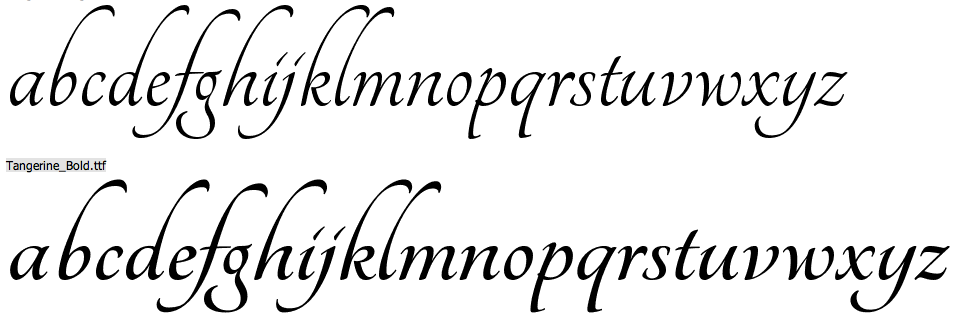
Omega Type Foundry [Toshi Omagari]
Toshi Omagari is a Japanese type designer who grew up in Fukuoka and studied typography and type design at Musashino Art University in Tokyo. After graduating in 2008, Toshi taught graphic design in Fukuoka. He joined the University of Reading in the summer of 2010 and graduated in 2011. He is a type designer at Monotype.
His graduation typeface Marco (<2011), which is named after Marco Polo, covers Latin, Mongolian, Greek, and Cyrillic, and has sans and serif versions. Inspiration for Marco goes back to Italian humanist typography such as those of Nicholas Jenson or Aldus Manutius, and general influences from calligraphy. Marco is a true superfamily, with wide utility and superb legibility---not surprisingly, it won an award at Modern Cyrillic 2014. The text styles were professionally produced in 2015 by Type Together in 2015---each style has over 1900 glyphs.
His chancery hand typeface Tangerine (2010) is part of the Google font directory (for free web fonts).
Typefaces from 2013: Metro Nova (Linotype: a sans family with a strangely circumcised lower case f). Metro Nova won an award at TDC 2014.
Typefaces from 2014: Neue Haas Unica and Neue Haas Unica Pan European. A digital update of the Helvetica alternative Haas Unica, which was originally released in 1980 by the Haas Type Foundry for phototypesetting.
In 2015, he made Cowhand (Monotype: a Western typeface). All words typed in Cowhand are of equal width, whether they contain one character or twenty (the maximum the font allows).
For Monotype, he made the custom typeface Quentin Blake (2016) that emulates the irregular handwriting of Sir Quentin Blake, acclaimed illustrator of Roald Dahl's novels.
In 2017, Toshi Omagari designed the Wolpe Collection for Monotype, all based on Berthold Wolpe's distinctive typefaces: Wolpe Pegasus, Wolpe Tempest, Wolpe Fanfare, Sachsenwald (blackletter: a revival of Berthold Wolpe's Sachsenwald from 1936), Albertus Nova.
In 2018, Linda Hintz and Toshi Omagari published the large geometric sans typeface family Neue Plak that revives and extends Paul Renner's Plak (1928).
Nadine Chahine and Toshi Omagari collaborated with Akira Kobayashi and Monotype Studio on Avenir Next Arabic (2021).
At his own foundry, Omega Type, he released these typefaces in 2021: Klaket (a bold and monolinear Arabic display typeface that was inspired by classic Egyptian film posters in a free form Ruqah style), Platia (a modern revival of the 19th century font Hellenic Wide).
At ATypI 2011 in Reykjavik, he spoke about Mongolian scripts. At ATypI 2015 in Sao Paulo, he revealed his research on the Siddham (post-Brahmian). Speaker at ATypI 2016 in Warsaw on BubbleKern (a new kerning algorithm). Speaker at ATypI 2017 Montreal on Sini: Arabic calligraphic styles from the Far East.